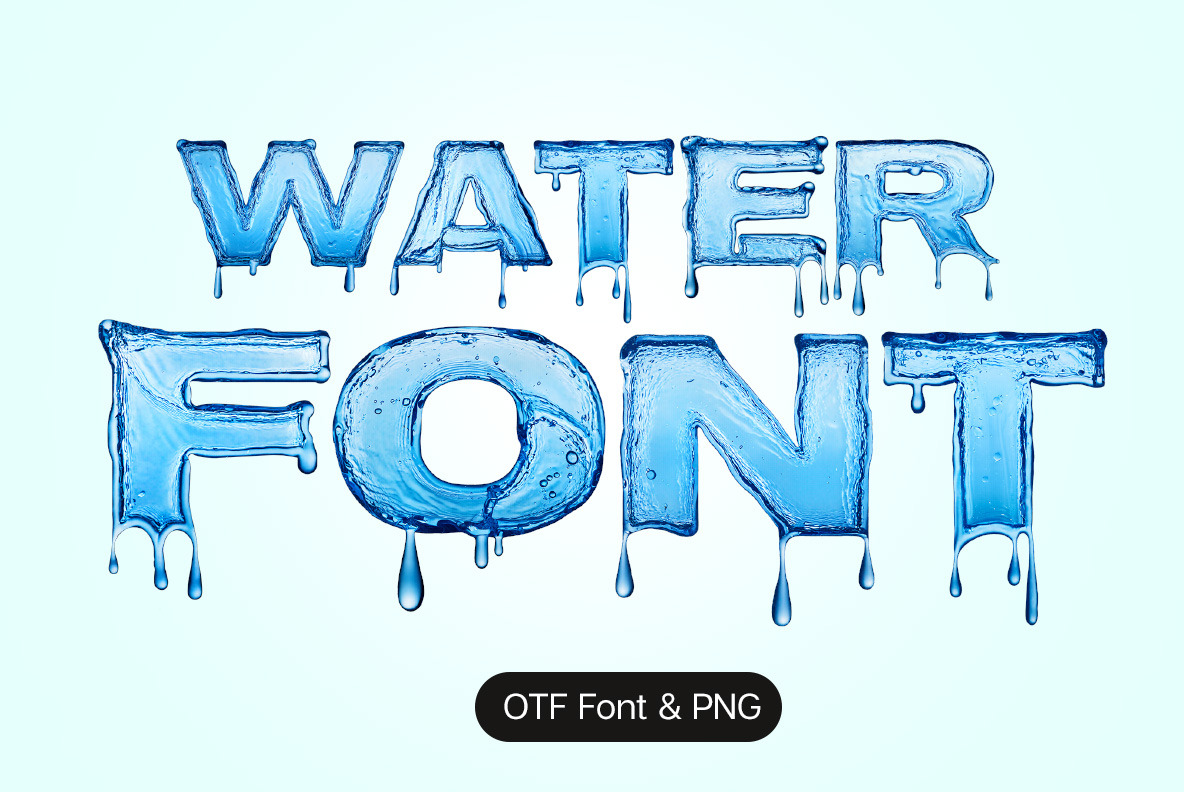
Water Font
Water Font – a refreshing collection of crystal-clear liquid letters and numbers, capturing the essence of flowing water in every stroke. Perfect for adding a splash of nature-inspired elegance to designs, this font embodies the purity and fluidity of water, making it ideal for eco-themed projects, wellness branding, and vibrant, creative typography.
A high definition OpenType Font. Contains uppercase characters, numerals and basic punctuation. (Draw height roughly 800 pixels). All letters and glyphs that comprises this font you can see on the preview.
- Letters : A B C D E F G H I J K L M N O P Q R S T U V W X Y Z
- Numbers : 0 1 2 3 4 5 6 7 8 9
- Others : ! ? - . ' $ € % @ &